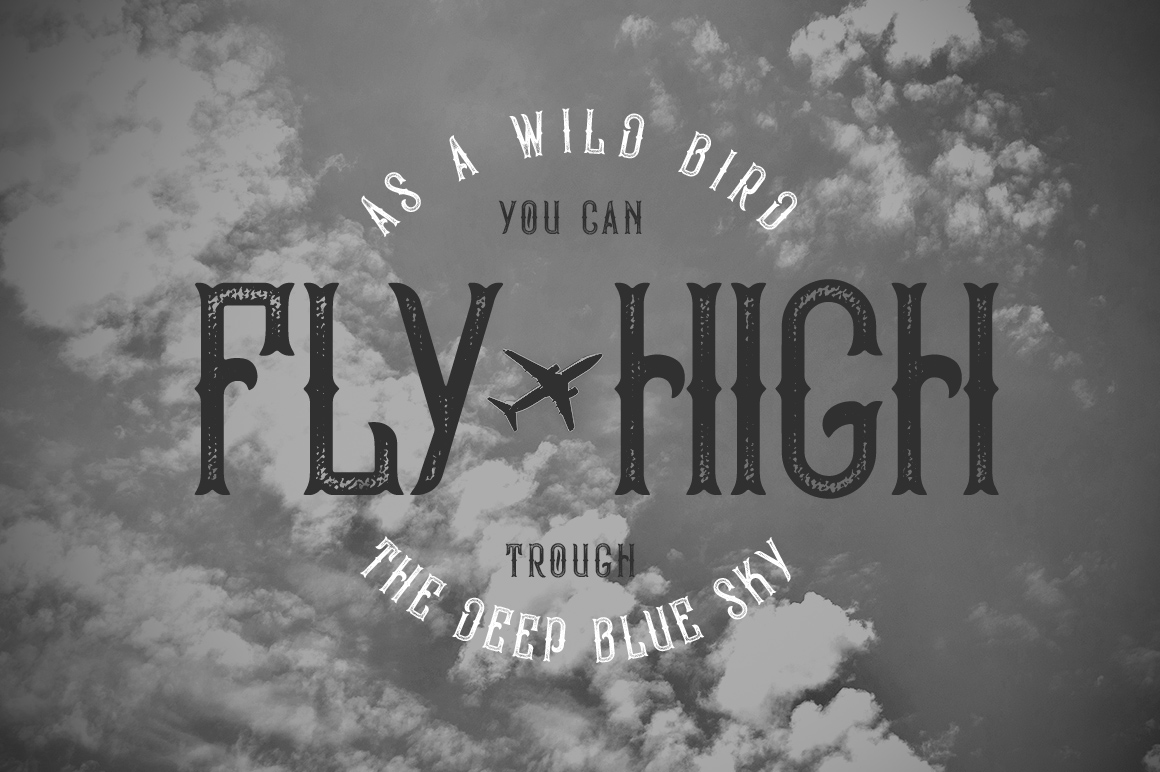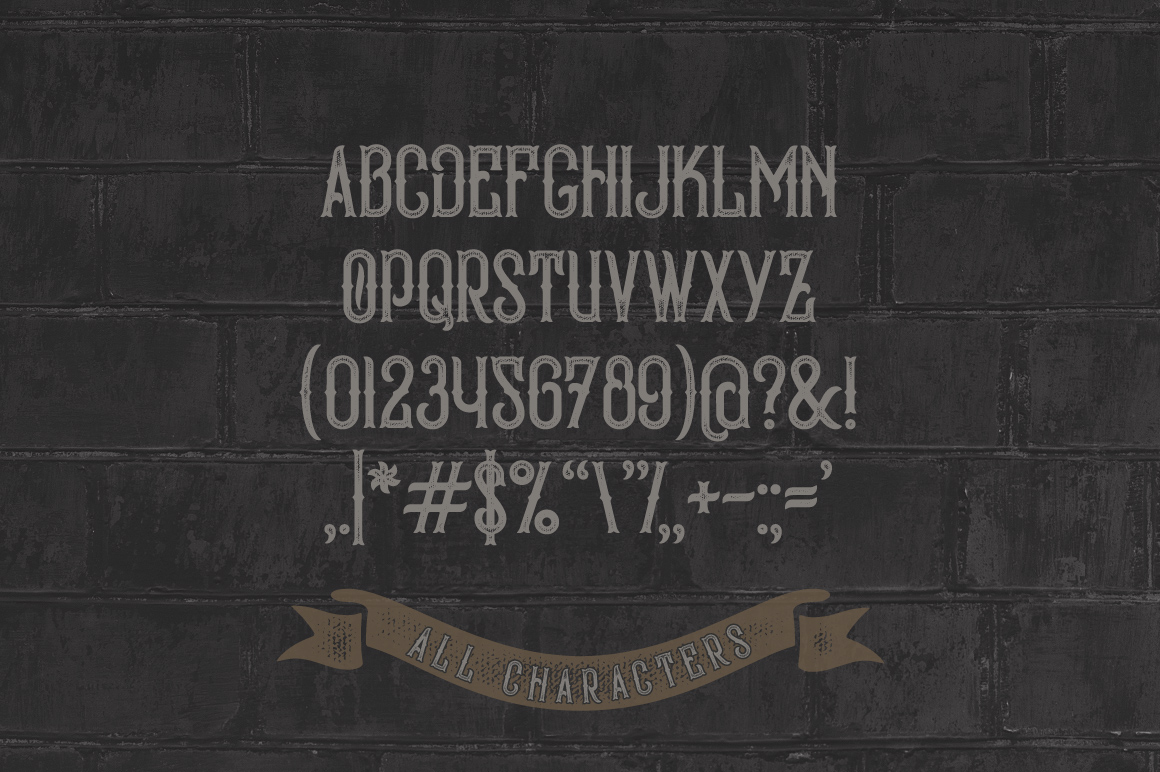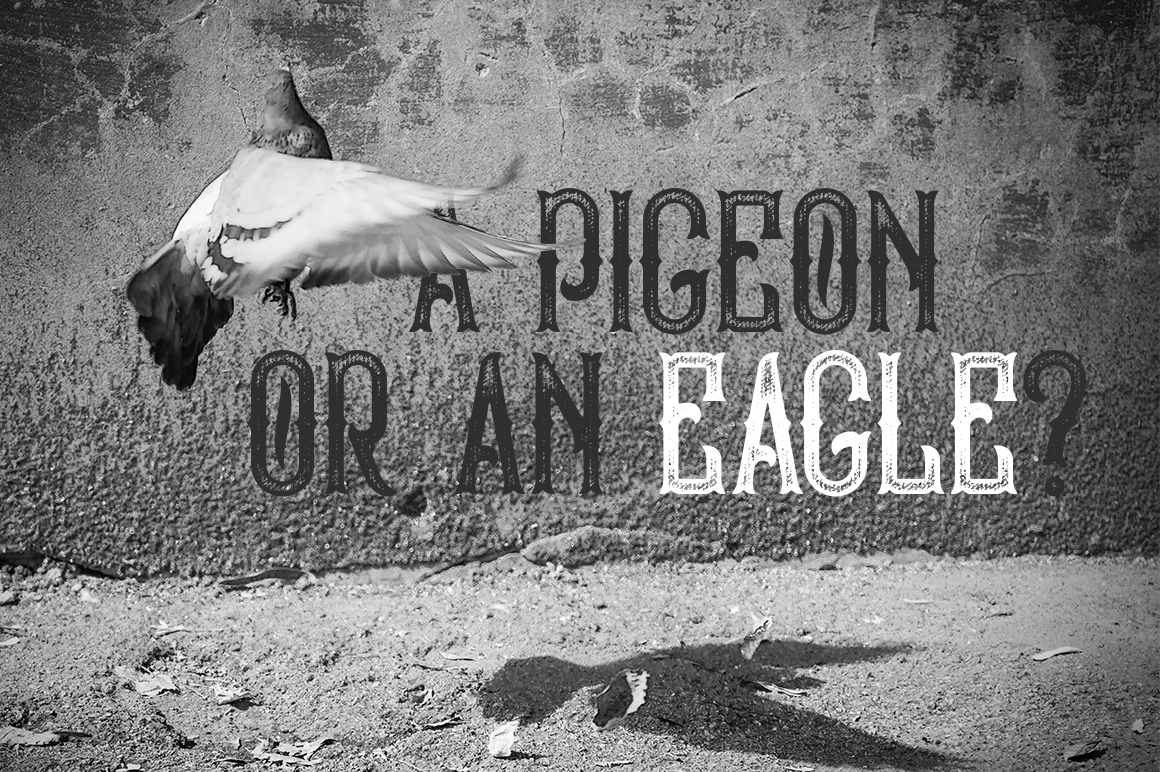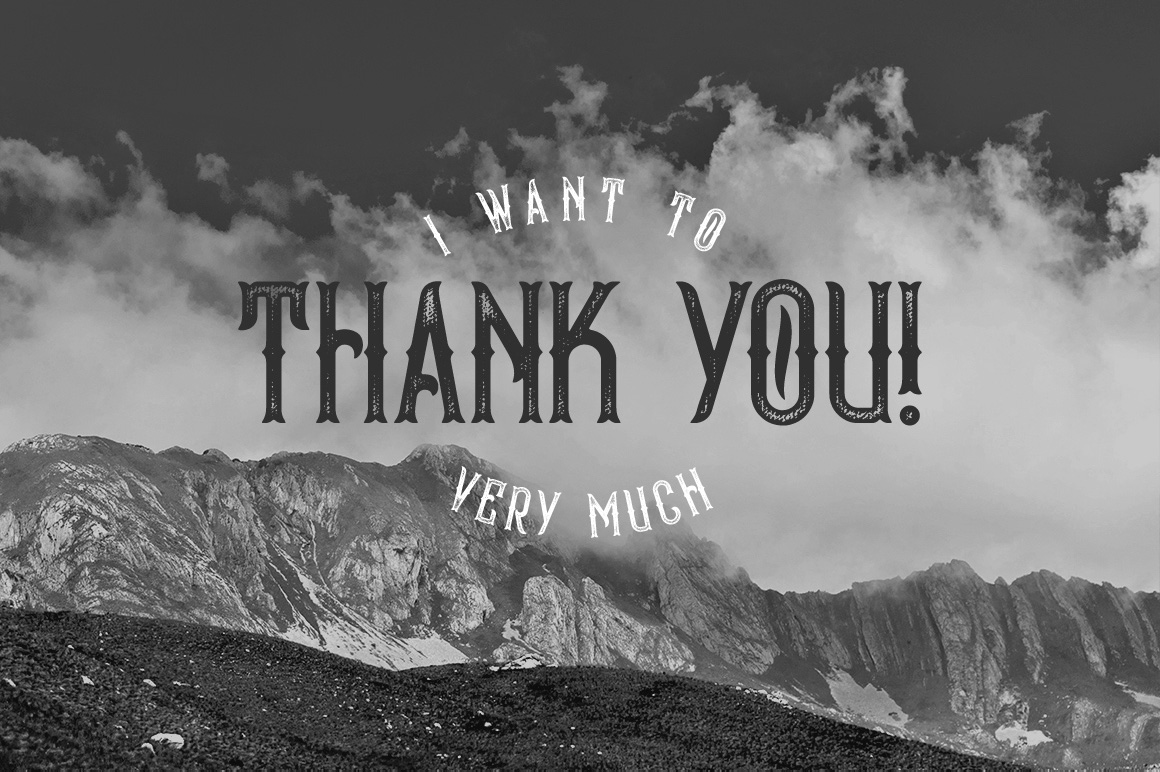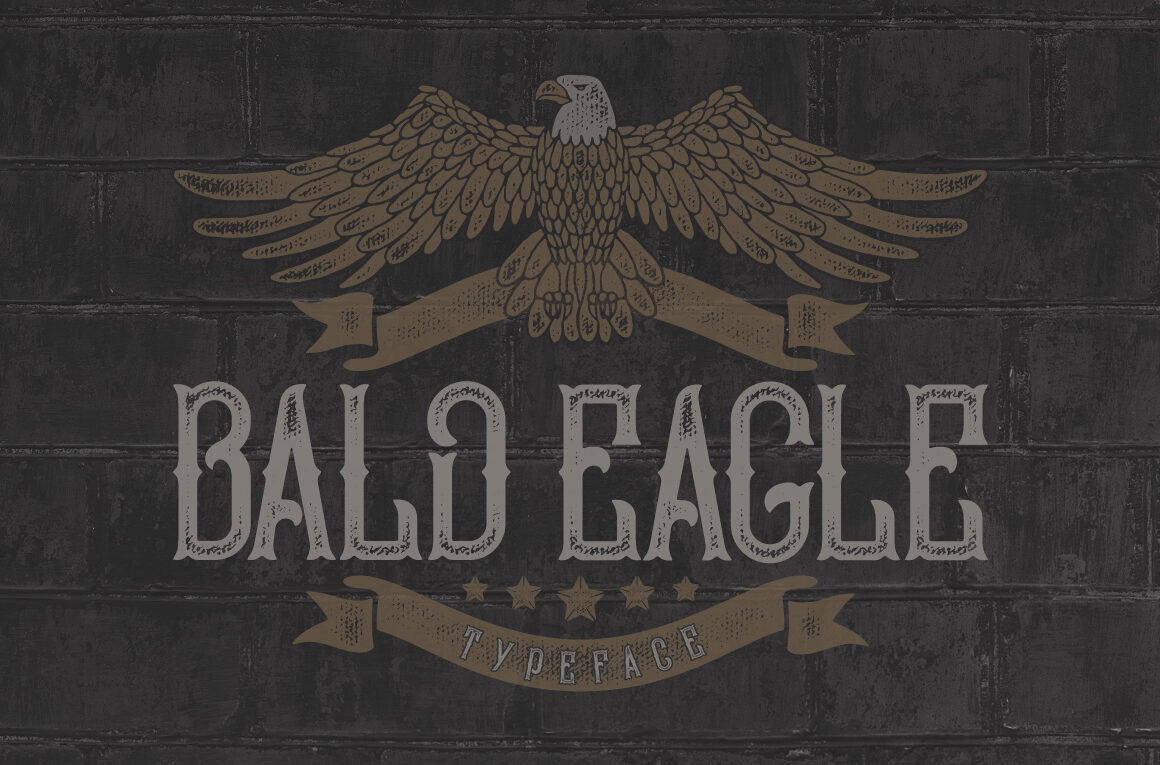
Bald Eagle Font: A Vintage Masterpiece with a Timeless Appeal
Are you a designer or crafter looking for a font that exudes a sense of nostalgia and authenticity? Look no further than the Bald Eagle Font. This vintage-inspired font has been making waves in the design community with its unique blend of classic charm and modern appeal. In this article, we’ll dive into the world of Bald Eagle Font, exploring its features, benefits, and uses.
The Stamp of Authenticity: A Textured Effect like No Other
One of the standout features of the Bald Eagle Font is its textured effect, which gives it an authentic, stamp-like appearance. The font’s creators have cleverly incorporated a stamp texture that adds a layer of depth and character to the letters. This effect is reminiscent of traditional rubber stamps, which were often used to add a touch of personality to documents and designs.
The textured effect is not just a superficial addition; it’s an integral part of the font’s design. The stamp texture gives Bald Eagle Font a worn, vintage look that’s perfect for designers and crafters who want to add a touch of nostalgia to their work. Whether you’re creating a logo, a poster, or a digital graphic, this font is sure to turn heads.
A Closer Look at the Design
Bald Eagle Font is a carefully crafted typeface that’s designed to evoke a sense of history and tradition. The letters themselves are bold and confident, with clean lines and a clear structure. The font’s serif design adds a touch of elegance, while the textured effect gives it a rugged, earthy feel.
One of the benefits of Bald Eagle Font is its versatility. The font is suitable for a wide range of design projects, from logos and branding materials to posters, flyers, and digital graphics. The font’s vintage look and feel make it perfect for designers who want to create a sense of nostalgia or retro charm.
Bald Eagle Font is a dream come true for designers and crafters who want to add a touch of personality to their work. The font’s unique blend of vintage charm and modern appeal makes it perfect for a wide range of projects, including:
- Logos and branding materials: Add a touch of nostalgia to your logo or branding materials with Bald Eagle Font.
- Posters and flyers: Create eye-catching posters and flyers with a vintage twist.
- Digital graphics: Add a touch of personality to your digital graphics, from social media posts to blog headers.
- Crafting projects: Use Bald Eagle Font to add a touch of elegance to your crafting projects, from scrapbooking to card making.
| Font Name | Bald Eagle Font |
| Author | Gleb Guralnyk |
In conclusion, Bald Eagle Font is a vintage-inspired masterpiece that’s perfect for designers and crafters who want to add a touch of nostalgia to their work. The font’s textured effect gives it an authentic, stamp-like appearance that’s sure to turn heads. With its bold, confident letters and versatile design, Bald Eagle Font is a must-have for anyone looking to add a touch of personality to their designs.